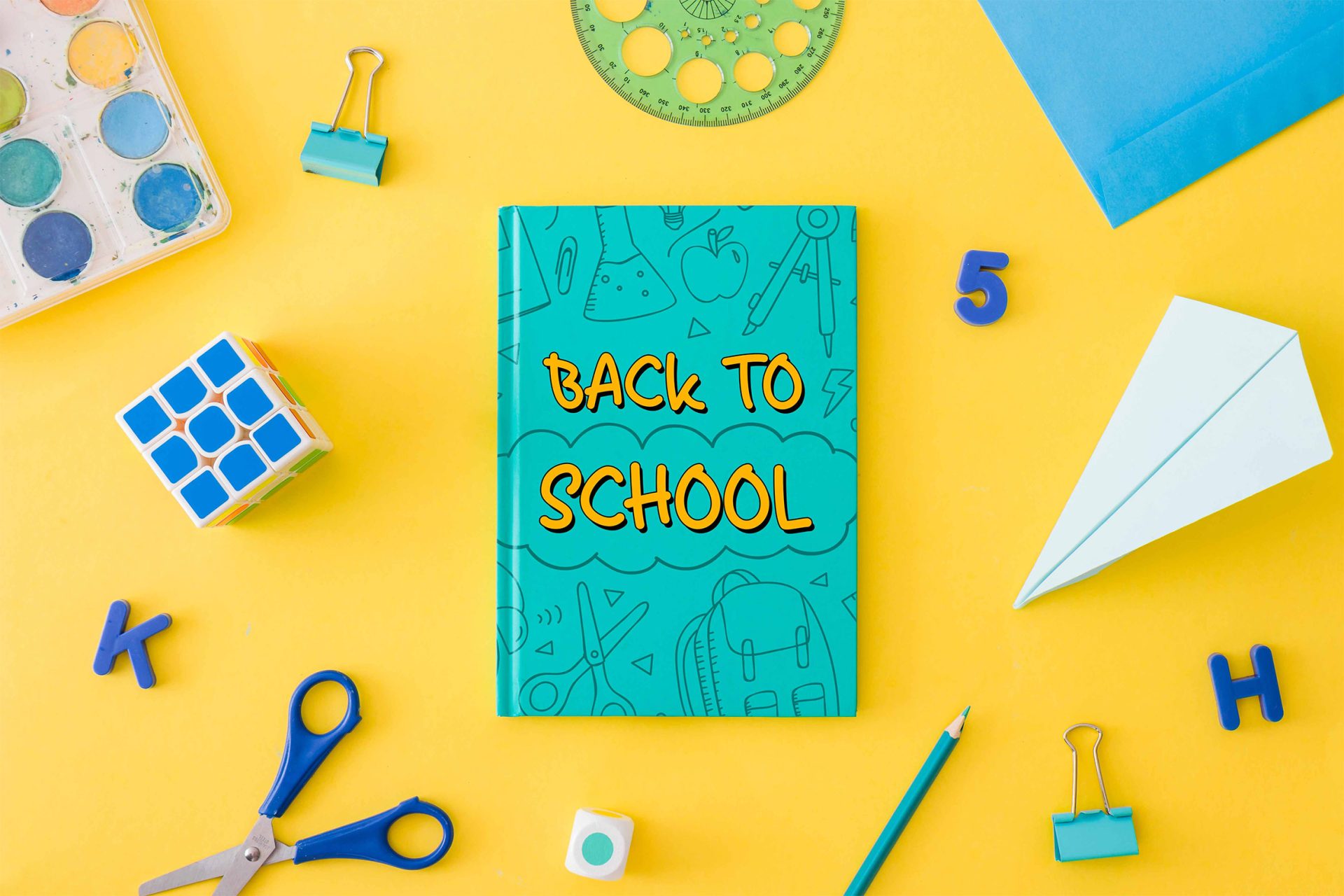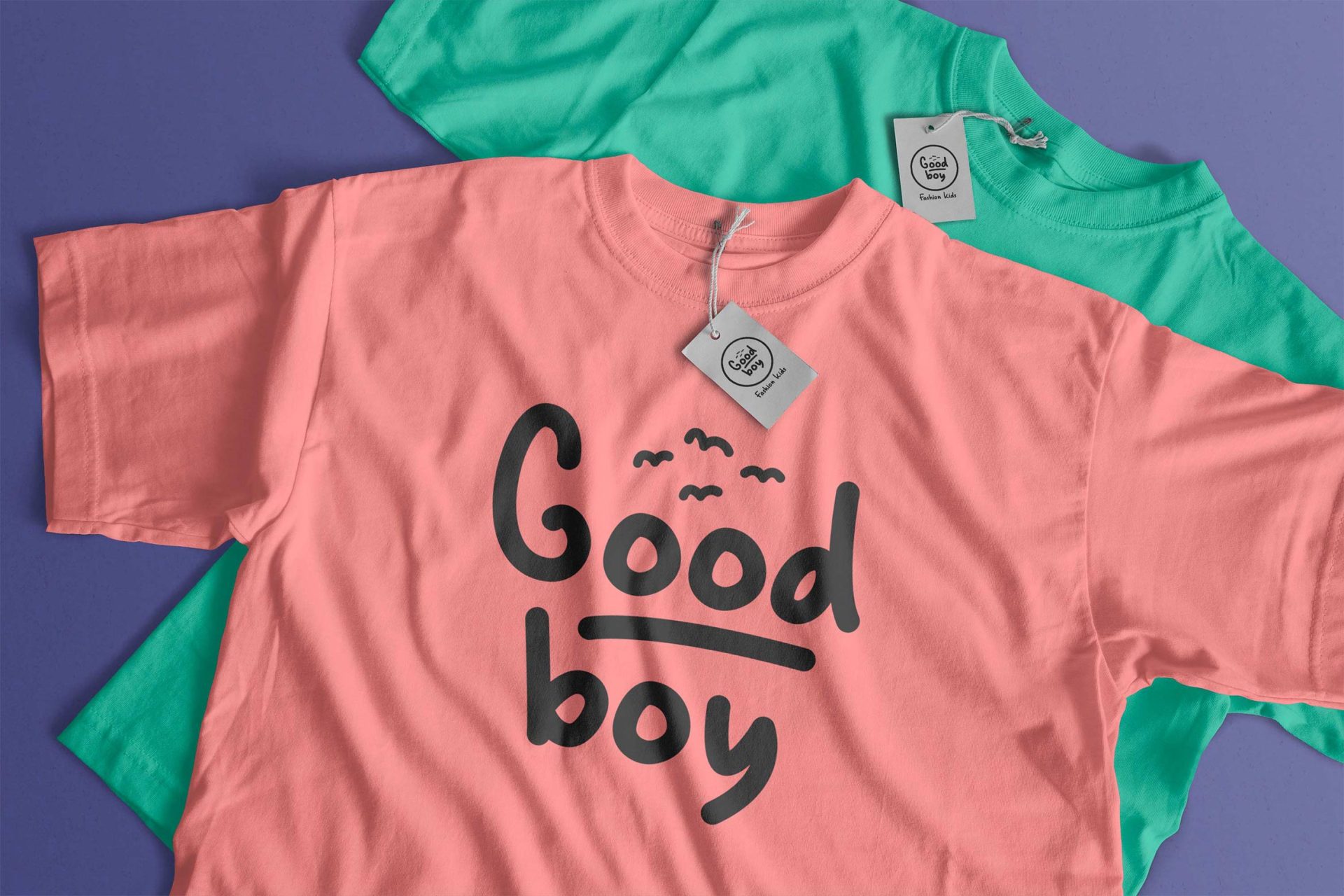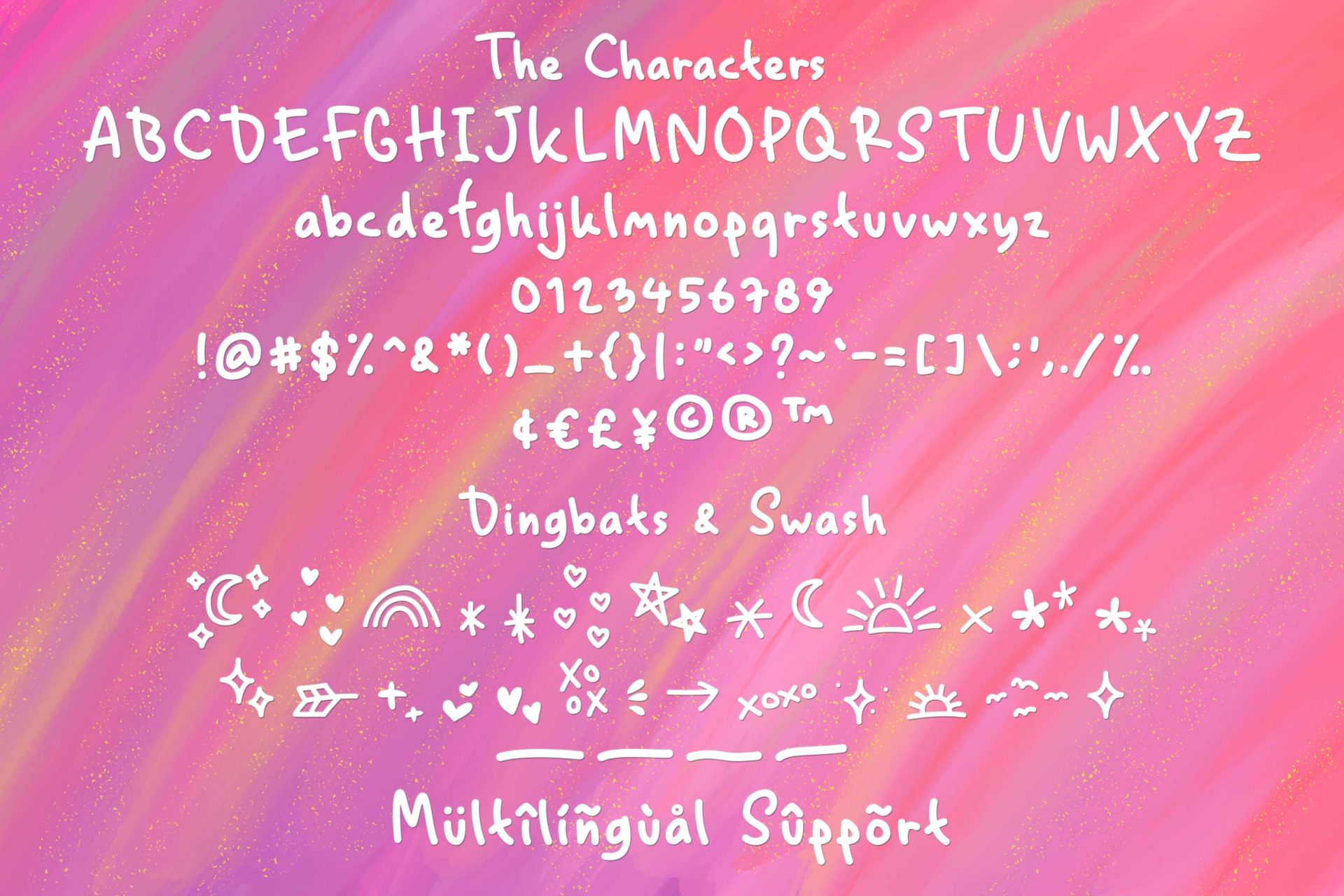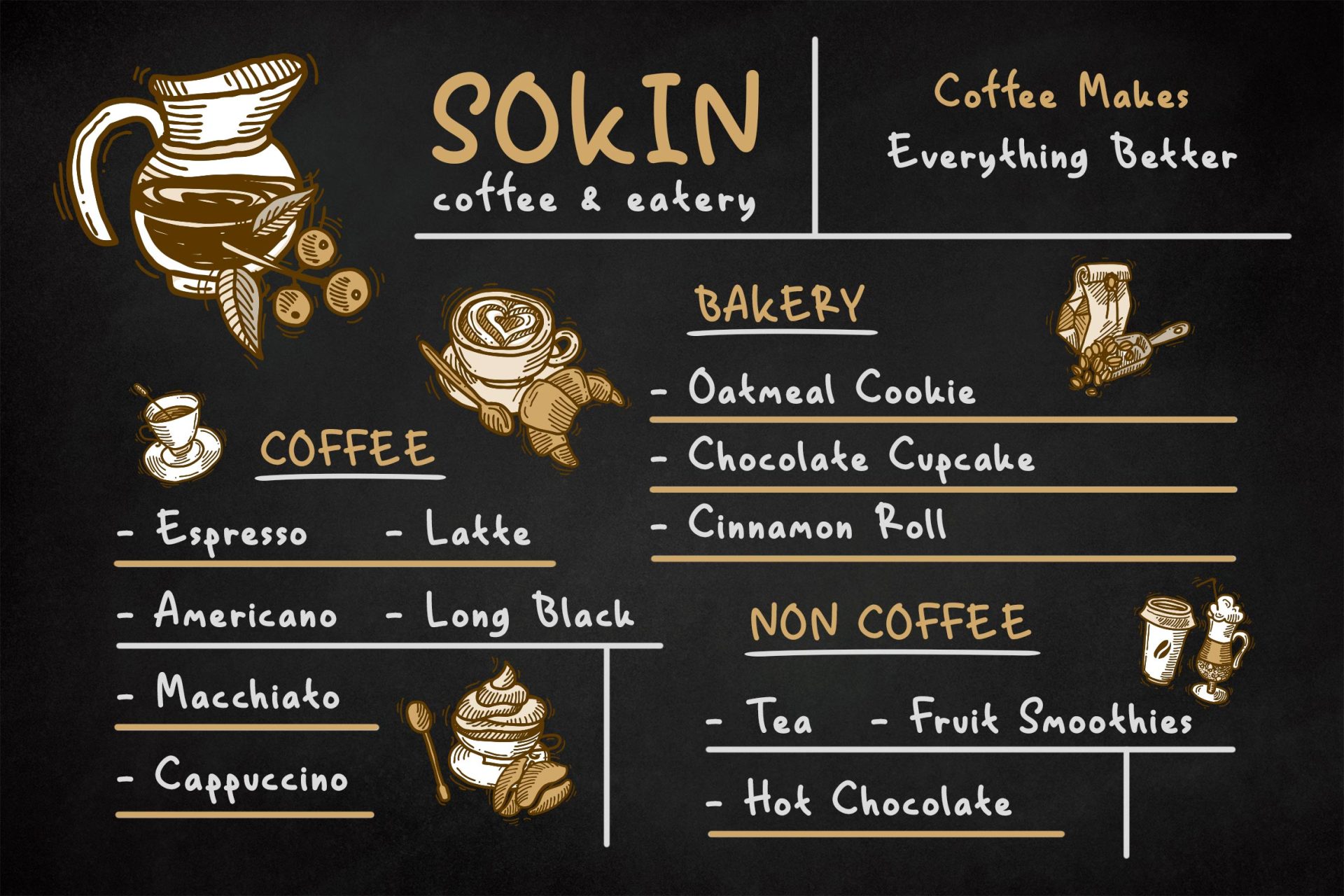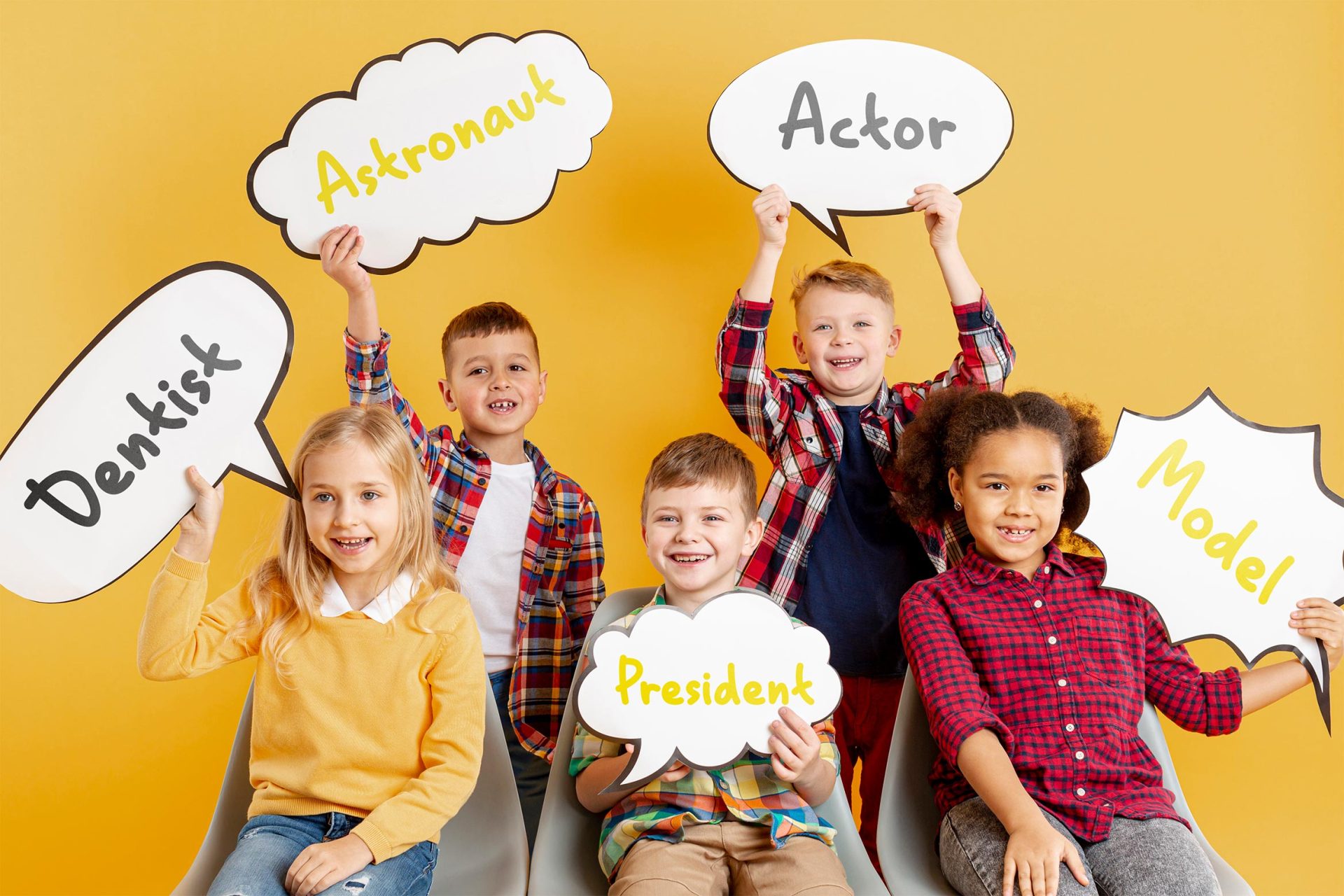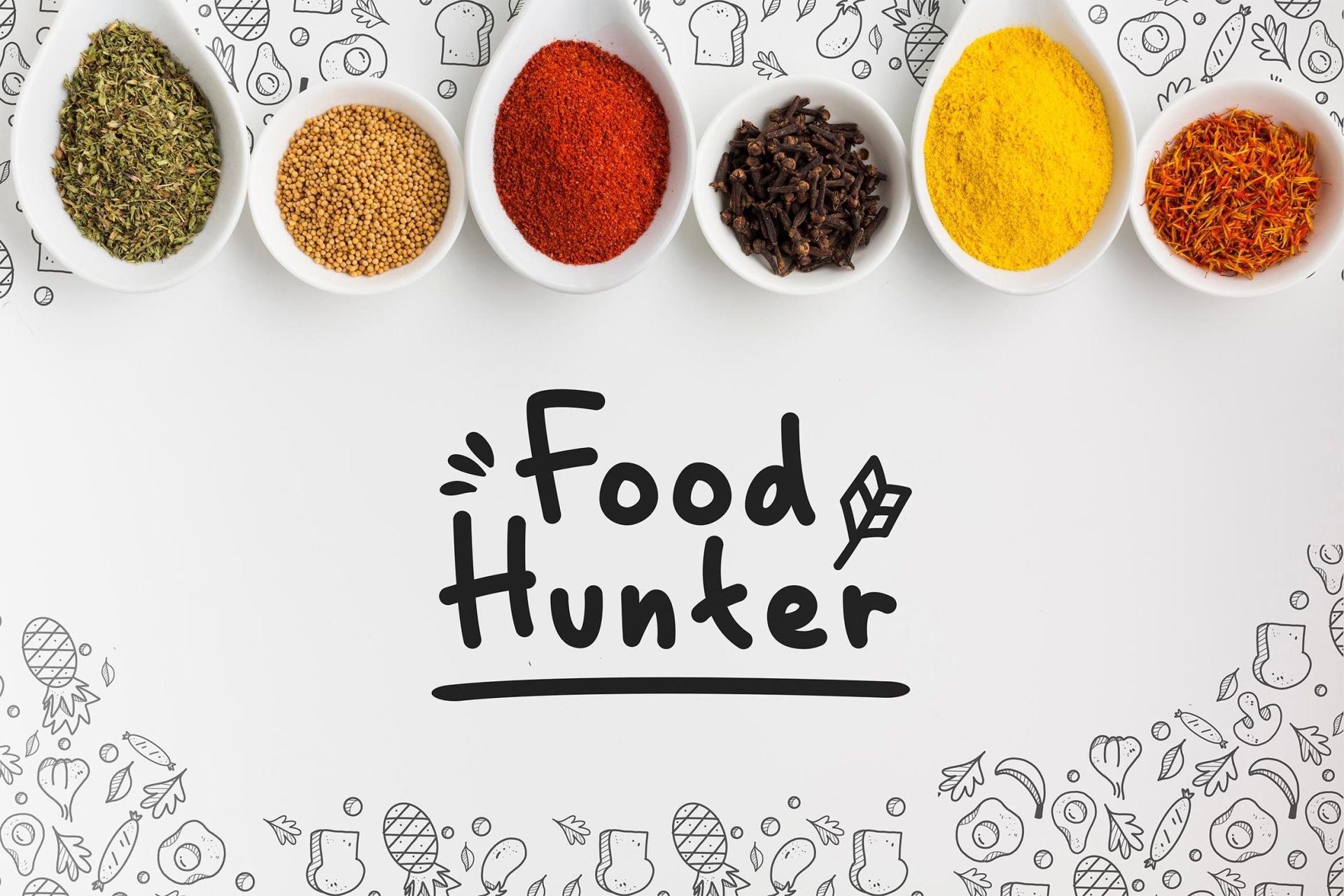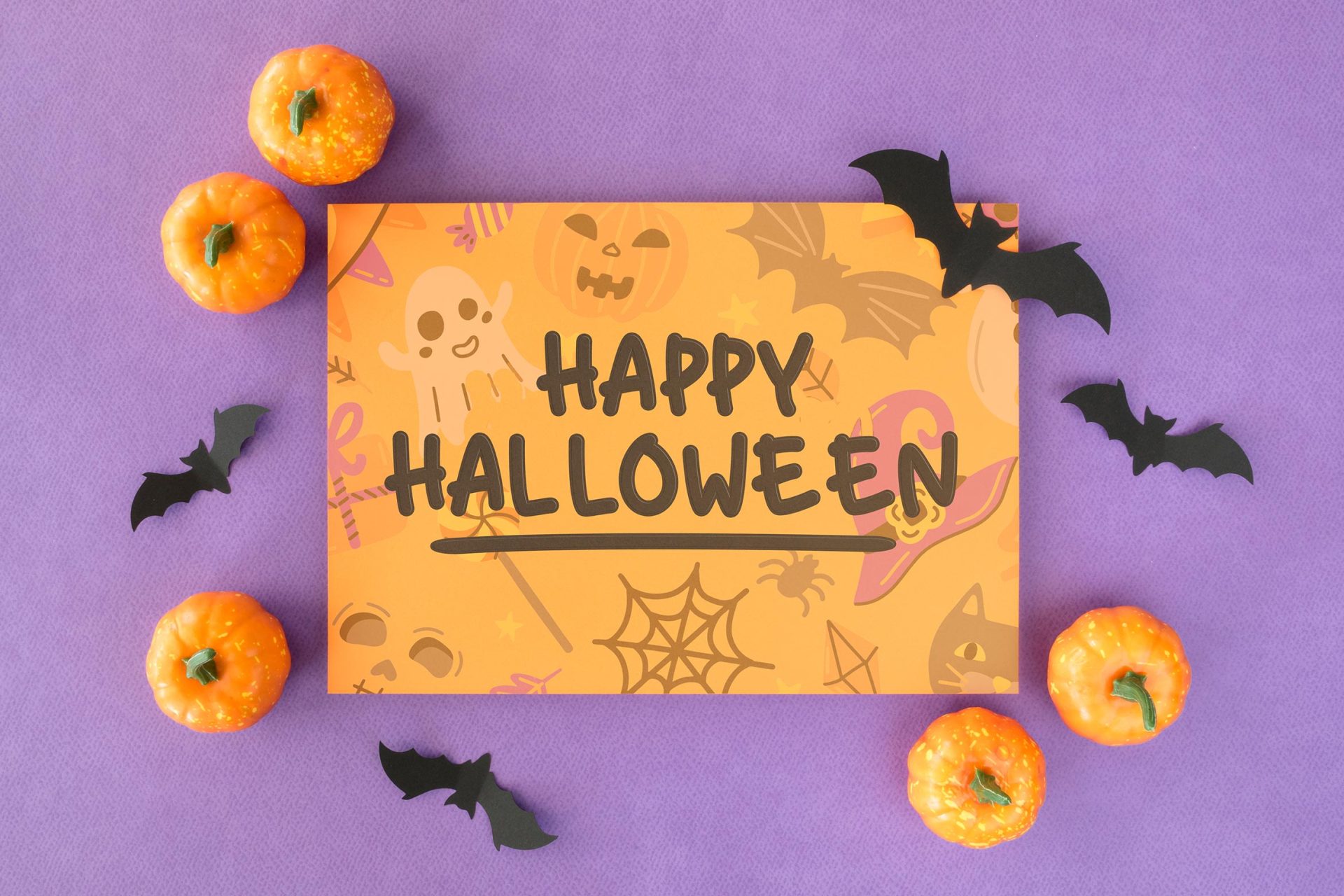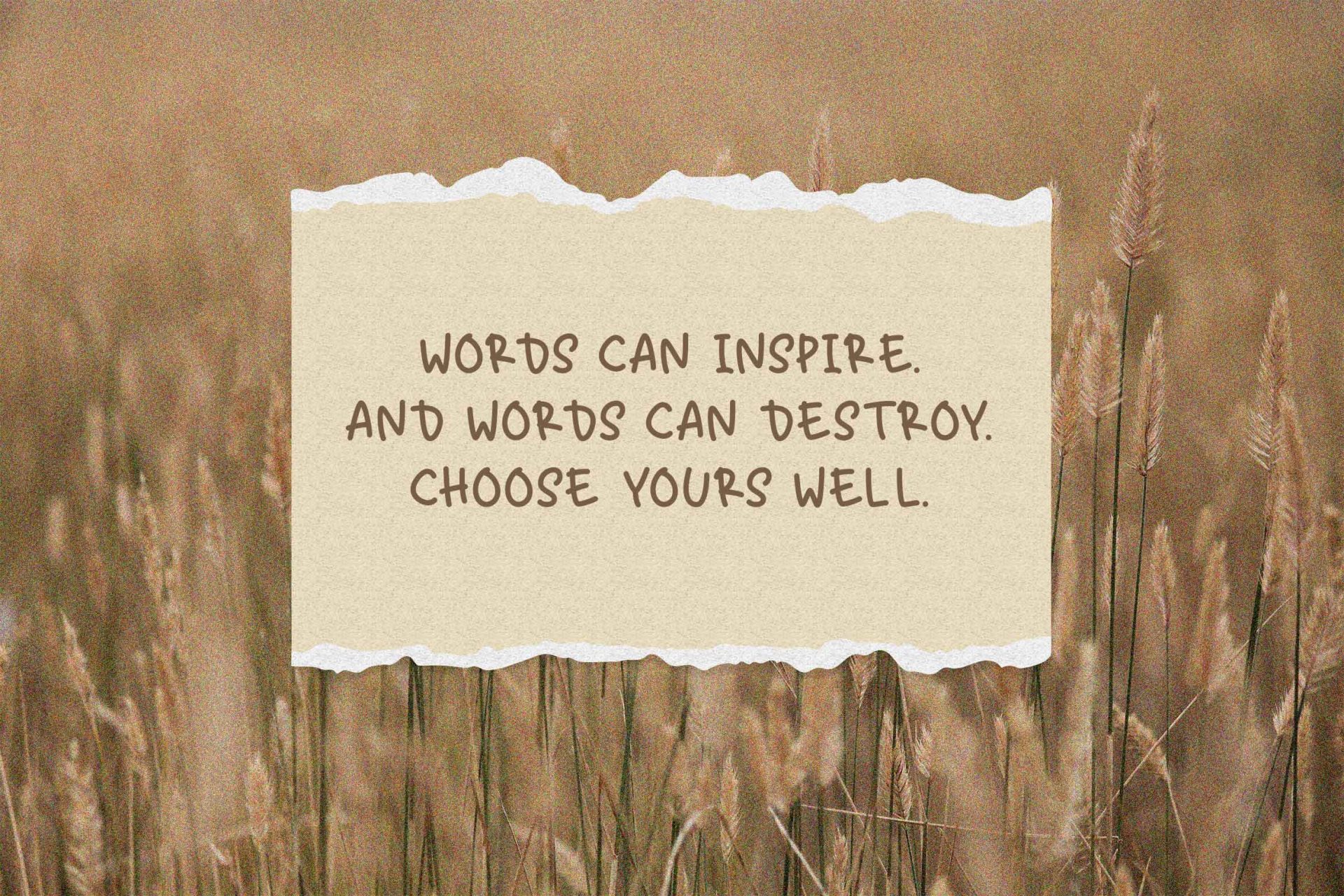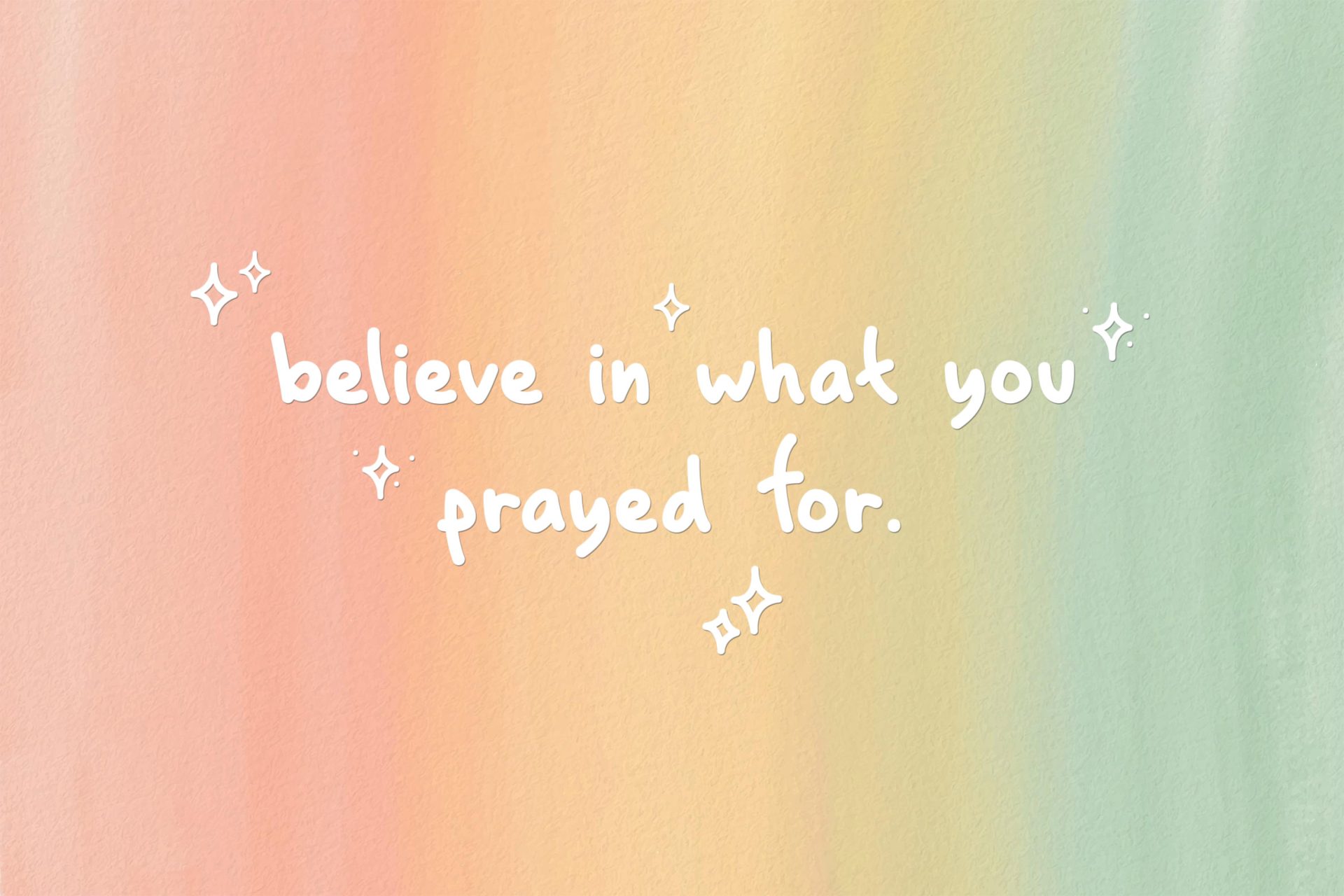
Stay Kids is handwritten Font. It has cute, fun, & cool. It’s a great font for fashion, apparel projects, signature, album cover, logo, branding, magazine, social media, & advertisements, but also works great for other projects.